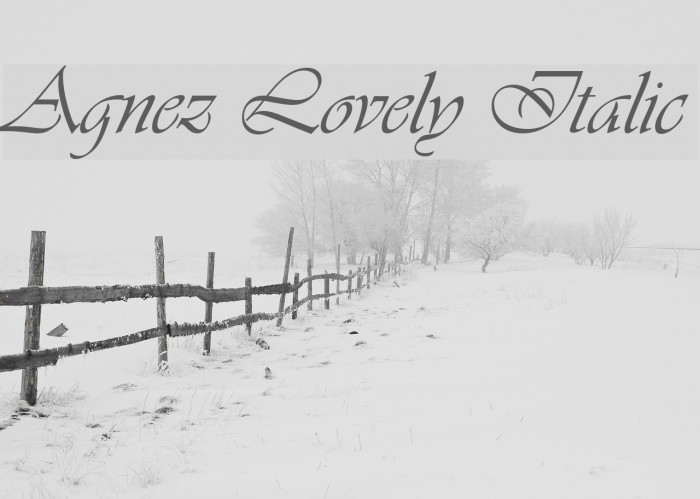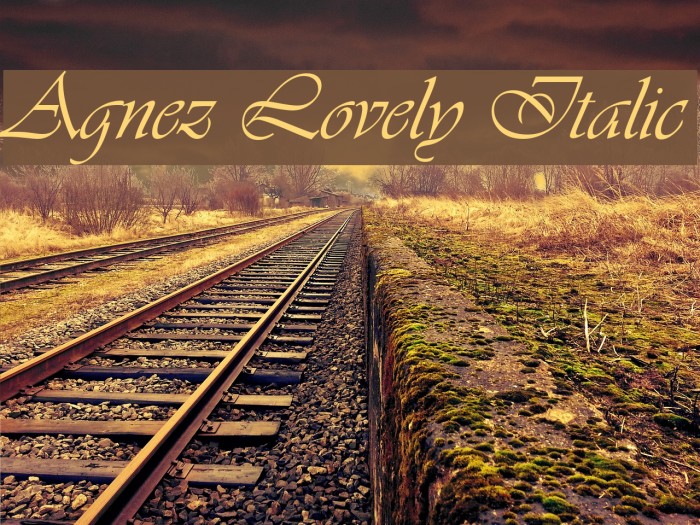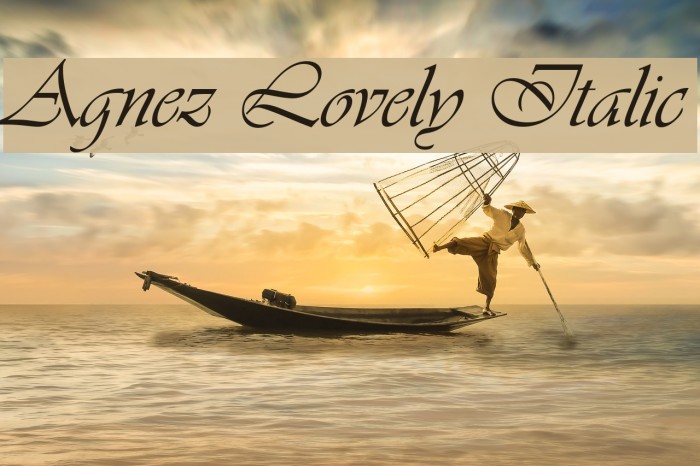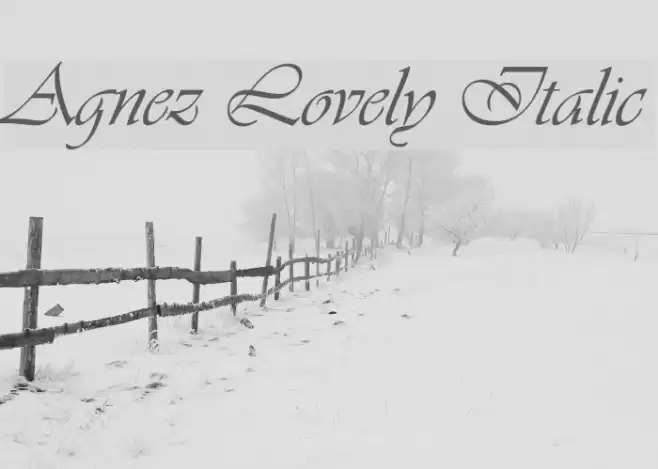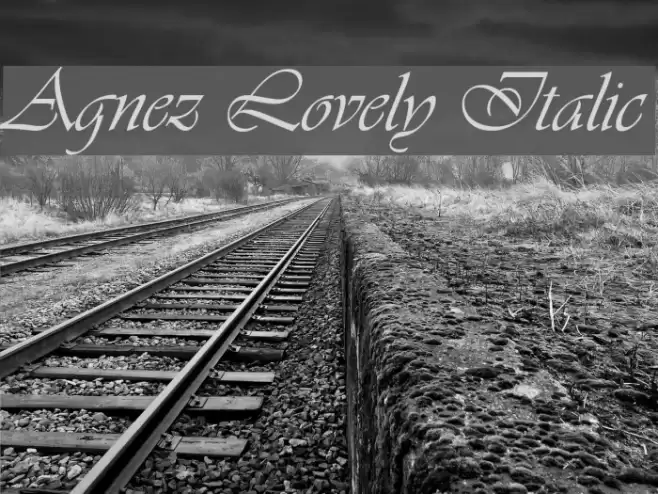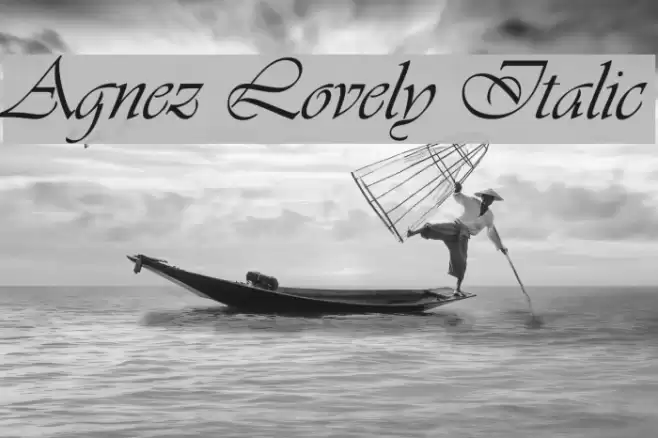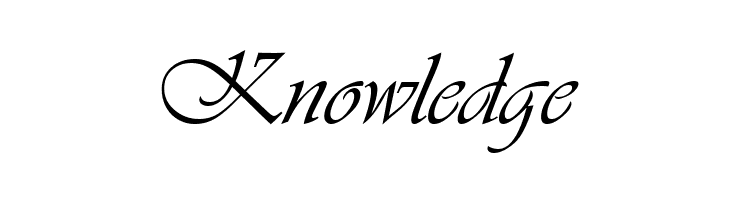
Agnez Lovely Italic Font
This elegant script font features a flowing, italicized style with high contrast between thick and thin strokes. The uppercase letters are ornate, with intricate loops and swirls that give a sense of sophistication and grace. The lowercase letters maintain a consistent slant, enhancing the fluidity and elegance of the text. Numbers and special characters are designed with the same attention to detail, ensuring a cohesive look across all elements. This font is perfect for projects that require a touch of elegance and refinement.
An elegant, italic script font with high contrast and ornate details.
- Proposed Projects: Ideal for wedding invitations, luxury branding, elegant logos, and high-end product packaging.
- Overall Style: Elegant
- Use Case: Logos, Invitations, Branding